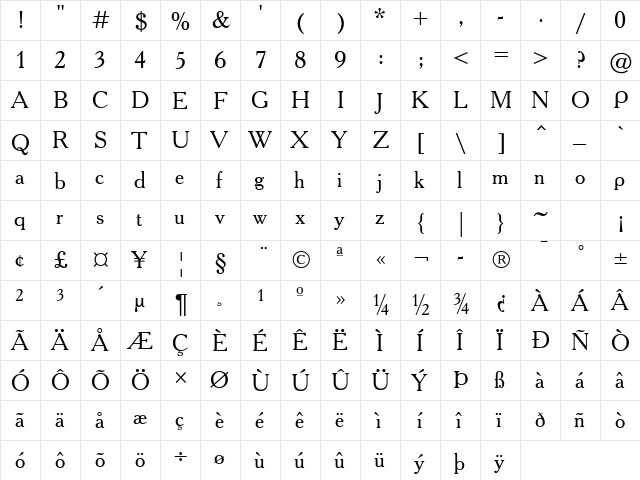
AcademyTT Regular
Design Context for AcademyTT Typeface
AcademyTT is a composed and adaptable typeface that performs quietly and consistently across a wide range of design contexts.